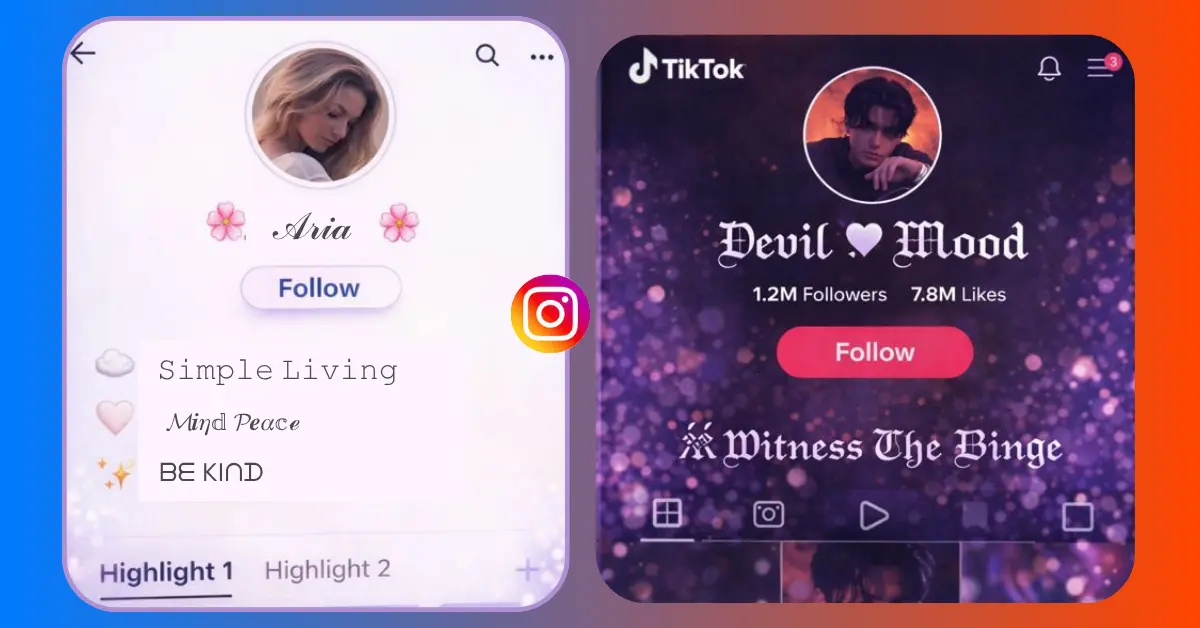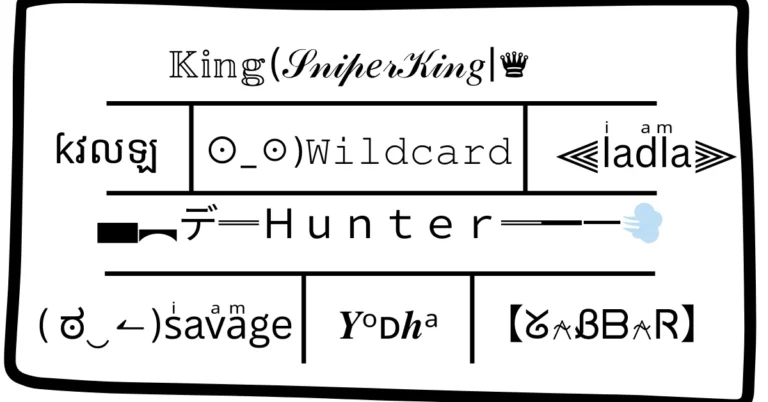
Stylish Username Ideas with Unicode Fonts for Social Media
Looking for a unique username for social media? You’re not alone. Finding a name that feels personal, looks good, and isn’t already taken has become surprisingly difficult. Most short usernames are long gone, and adding random numbers or extra letters usually makes things worse, not better.
That’s where Unicode fonts come in. With the right Unicode characters, you can transform a simple name into a stylish, eye-catching username that still works across major social platforms. No screenshots. No images. Just clean text that stands out.
At fontsgem, we built a Unicode font generator specifically to help social media users create usernames that look unique without becoming unreadable or messy. This guide explains what Unicode fonts are, why they work so well on social media, and how to use them to create usernames people actually remember.
Why Social Media Usernames Are So Hard to Get Right
Your username is more than just a login. On social media, it’s part of your identity.
It shows up:
At the top of your profile
In comments and replies
In search results
In tags, mentions, and shares
A weak username gets ignored. A confusing one gets forgotten. A clean, stylish one sticks.
The problem is availability. Platforms like Instagram, TikTok, and Twitter have hundreds of millions of users. Almost every simple name is already taken. That’s why many people end up with usernames full of numbers, underscores, or awkward spellings.
Unicode fonts solve this problem in a smarter way.
What Are Unicode Fonts?
Unicode fonts aren’t images or special downloadable fonts. They’re made from Unicode characters, which are part of a global text system used by almost every modern device and app.
Instead of changing the font itself, Unicode replaces standard letters with alternative characters that look different but behave like normal text.
That’s why a Unicode username:
Can be copied and pasted like regular text
Works across most social media platforms
Displays correctly on phones, tablets, and desktops
Doesn’t require plugins or apps to view
For example:
Normal text
Shadow
Unicode styles
𝑺𝒉𝒂𝒅𝒐𝒘
𝓢𝓱𝓪𝓭𝓸𝔀
ѕнα∂σω
They all look different, but technically they’re still text.
Why Unicode Usernames Work So Well on Social Media
Social platforms reward visibility and recognition. A Unicode username gives you a visual edge without breaking platform rules.
Better First Impressions
When someone lands on your profile, your username is one of the first things they notice. A well-styled name looks intentional. It signals creativity and care, even before someone reads your bio.
Easier to Stand Out in Comments
Scroll through any popular post and you’ll see hundreds of comments. A clean Unicode username naturally stands out among plain text names, especially when used subtly.
More Memorability
People remember what looks different. A simple name styled with Unicode characters is often easier to recall than a long name filled with numbers or symbols.
Still Searchable and Taggable
Unicode usernames are still text-based. That means people can tag you, mention you, and copy your name without issues on most platforms.
Social Media Platforms That Support Unicode Usernames
Unicode usernames work well on most major social platforms, including:
Instagram
TikTok
Twitter (X)
Facebook
Snapchat
Threads
Discord (for social use)
Pinterest
Each platform handles Unicode slightly differently, which is why testing your username before committing is important. If one style doesn’t display well, switching to another usually fixes the issue.
Popular Unicode Username Styles for Social Media
Not all Unicode styles look good everywhere. The best usernames are stylish but still readable. Here are some of the most popular styles used by social media creators.
1. Elegant Serif Styles
These fonts look refined and balanced. They’re popular with creators, writers, photographers, and personal brands.
Example:
𝑨𝒍𝒆𝒙𝑴𝒆𝒅𝒊𝒂
Best for:
Instagram profiles
Twitter/X accounts
Professional or semi-professional branding
2. Bold and Clean Unicode Fonts
Bold Unicode fonts feel confident and modern. They stand out without being decorative.
Example:
𝐋𝐮𝐧𝐚𝐂𝐫𝐞𝐚𝐭𝐞𝐬
Best for:
Content creators
Influencers
Public-facing profiles
3. Cursive and Script Styles
Cursive Unicode fonts feel personal and expressive. They’re especially popular for lifestyle and aesthetic accounts.
Example:
𝓜𝓸𝓸𝓷𝓓𝓪𝔂𝓼
Best for:
Instagram aesthetics
Art and poetry pages
Personal diaries and mood accounts
4. Minimal Symbol Styling
Sometimes less really is more. A simple name with one or two subtle symbols can look cleaner than heavy decoration.
Final Thoughts
A good social media username doesn’t need numbers, extra letters, or awkward spelling. It just needs the right style.
Unicode fonts give you a way to stay true to your name while making it visually unique. When used thoughtfully, they help your profile stand out, feel intentional, and stay memorable.
If you’re ready to upgrade your social media identity, start experimenting with Unicode styles and find a username that actually feels like you. Sometimes, a small visual change makes a bigger difference than you expect.